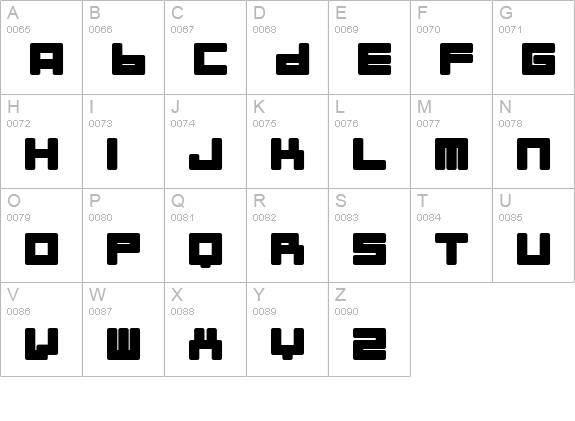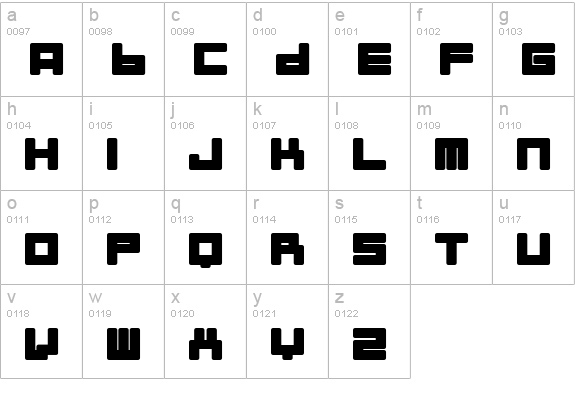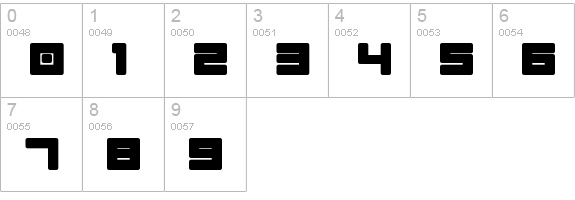
Almanaque Normal Font Details
Almanaque Normal is the standard, neutral variant in the Almanaque typeface family \xE2\x80\x94 well suited to general body text, paragraphs, and standard typographic work.
Almanaque Normal font is a versatile and elegant typeface that exudes sophistication and style. With its clean lines and timeless design, this font is perfect for a wide range of projects, from branding to editorial design. Its classic yet modern look makes it a popular choice among designers looking to add a touch of class to their work. The best part? Almanaque Normal font is available for free! You can easily download this beautiful font at FontsMarket.com and start using it in your projects right away. Don't miss out on the opportunity to elevate your designs with this stunning typeface. Download Almanaque Normal font today and see for yourself why it's a favorite among designers worldwide.